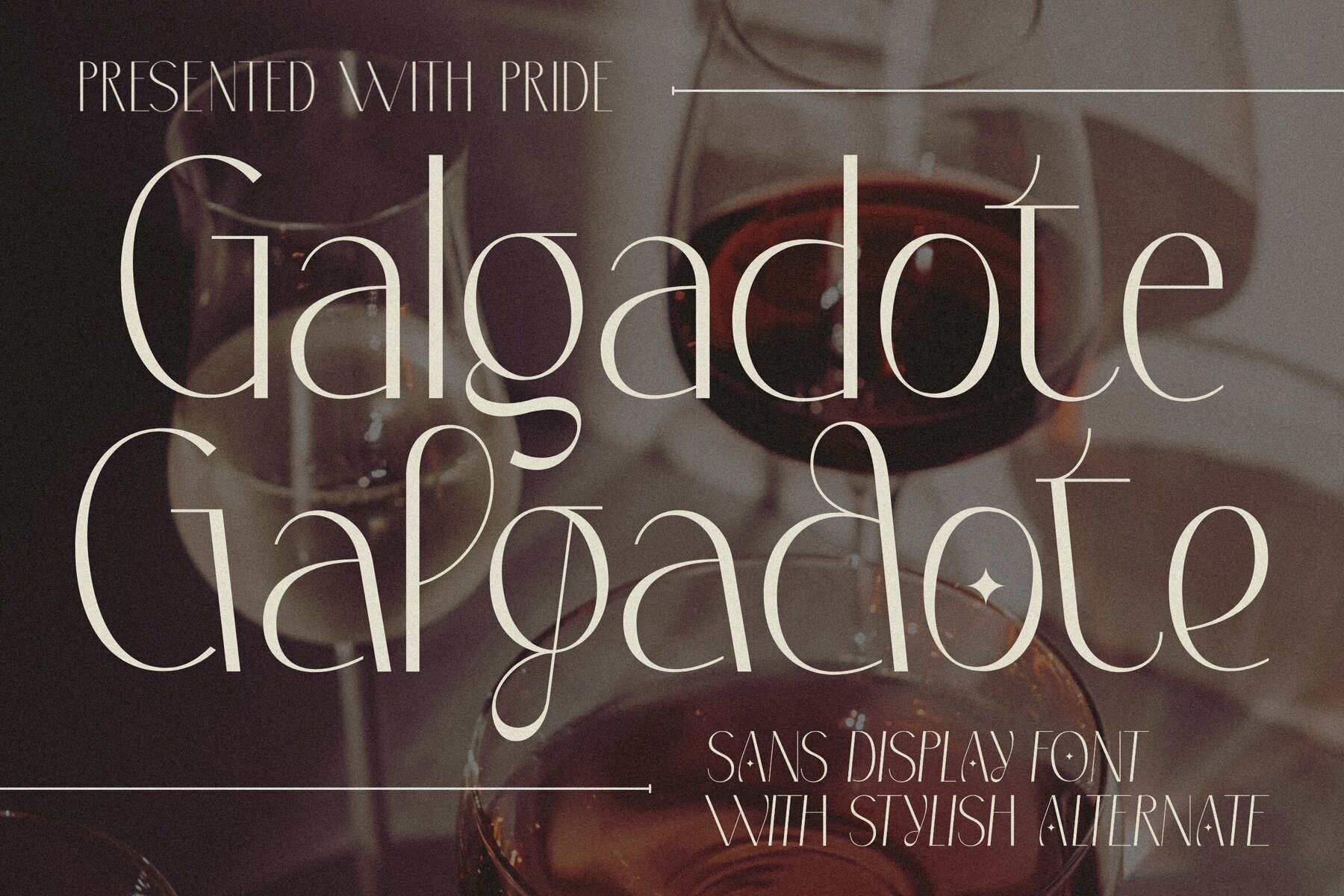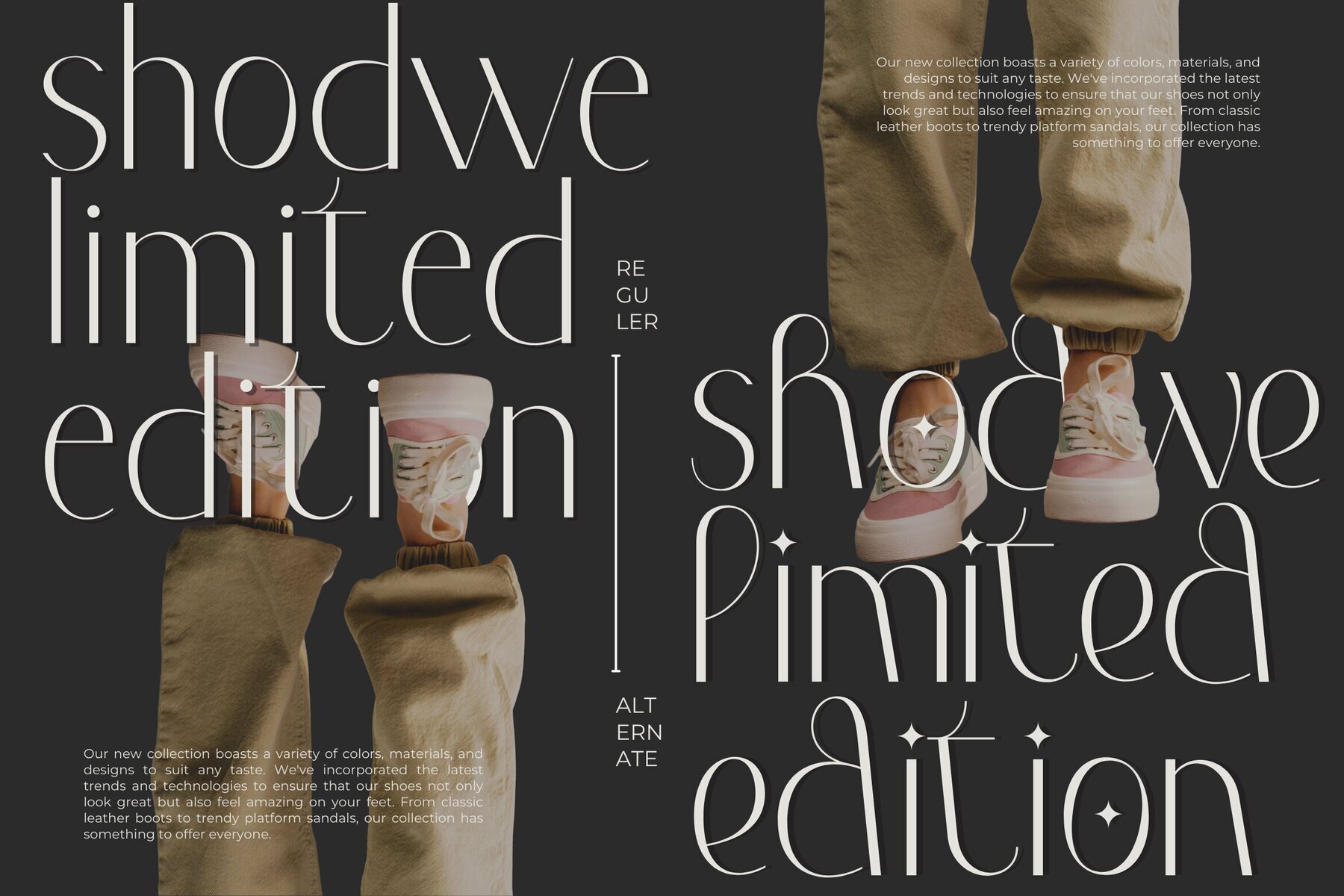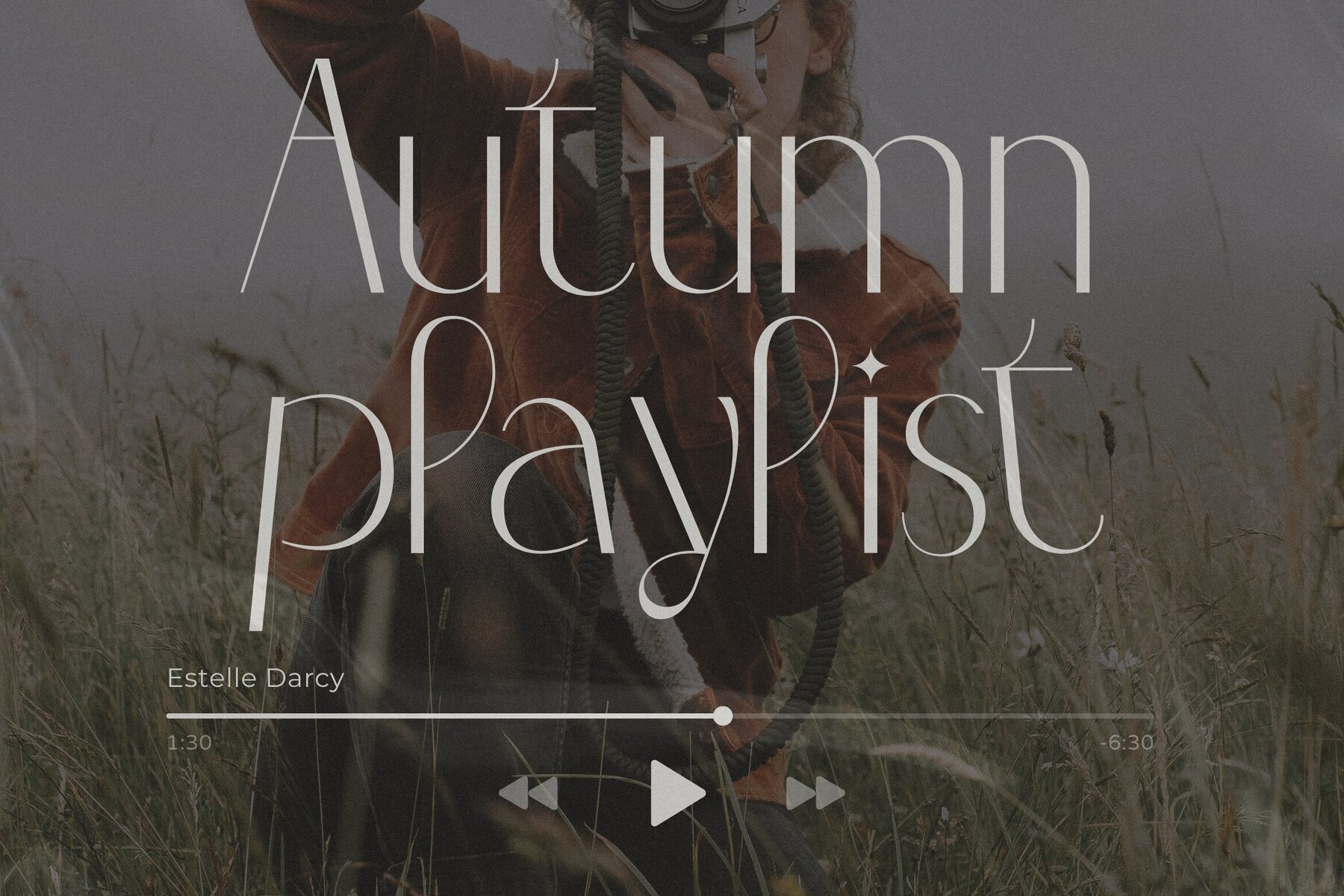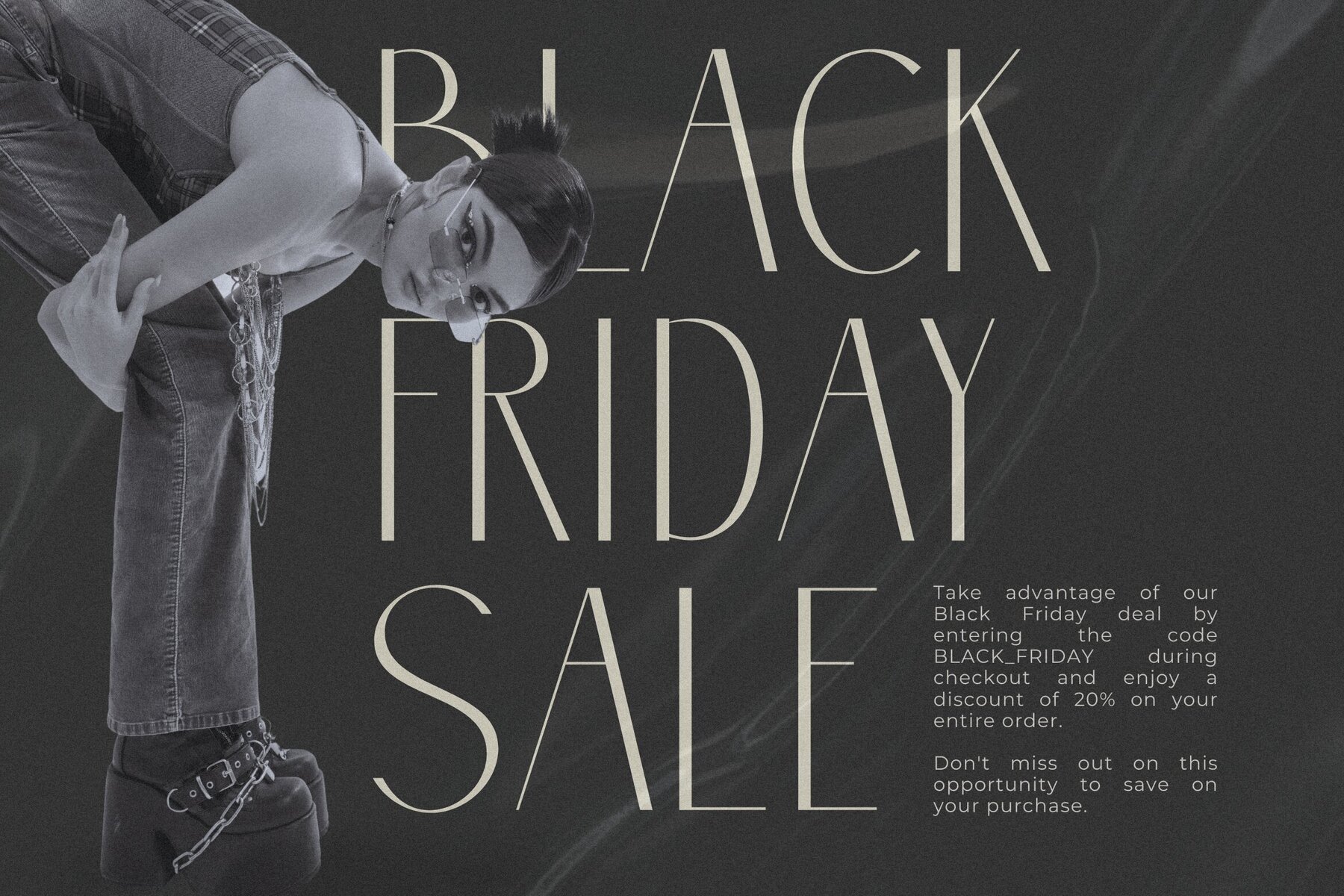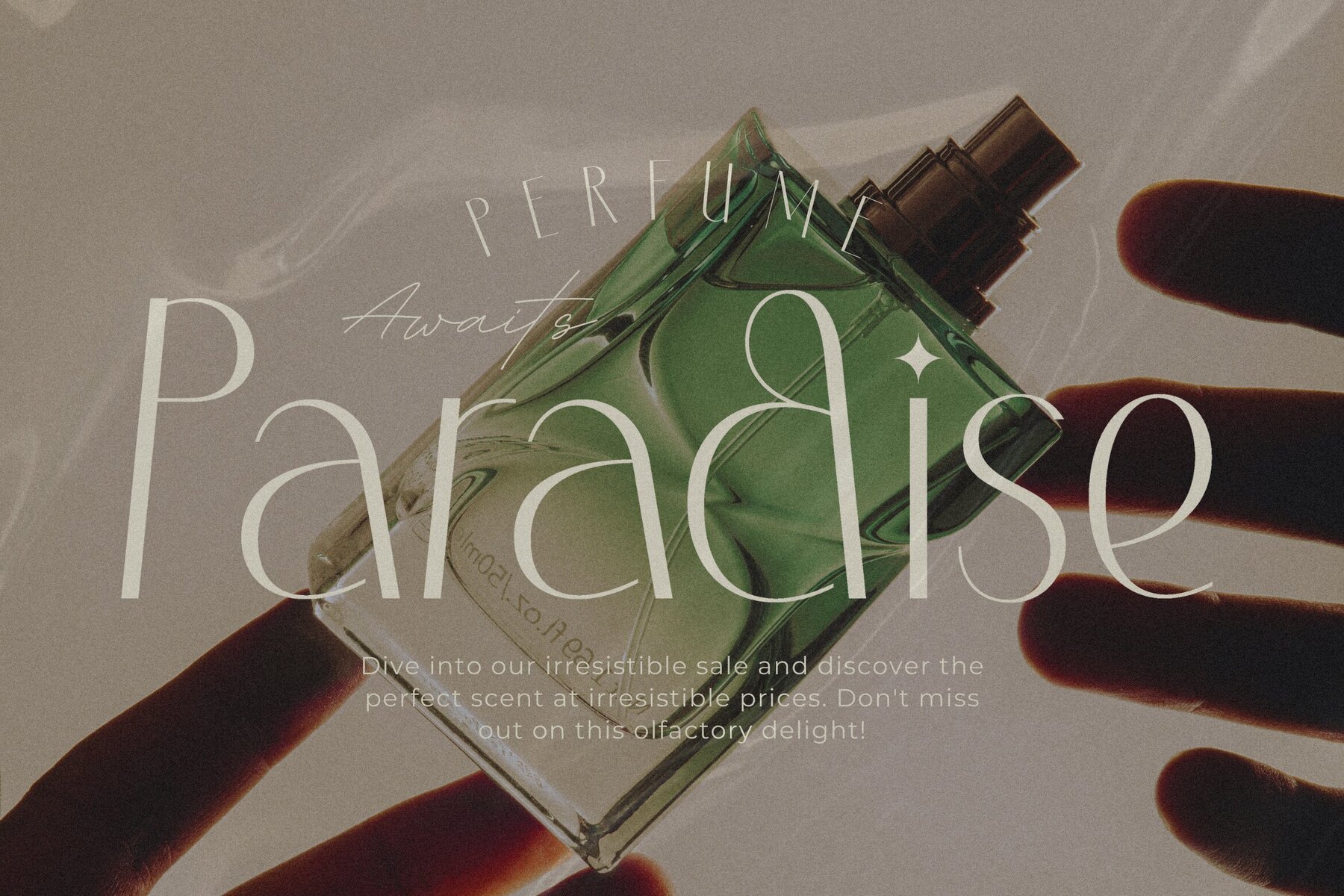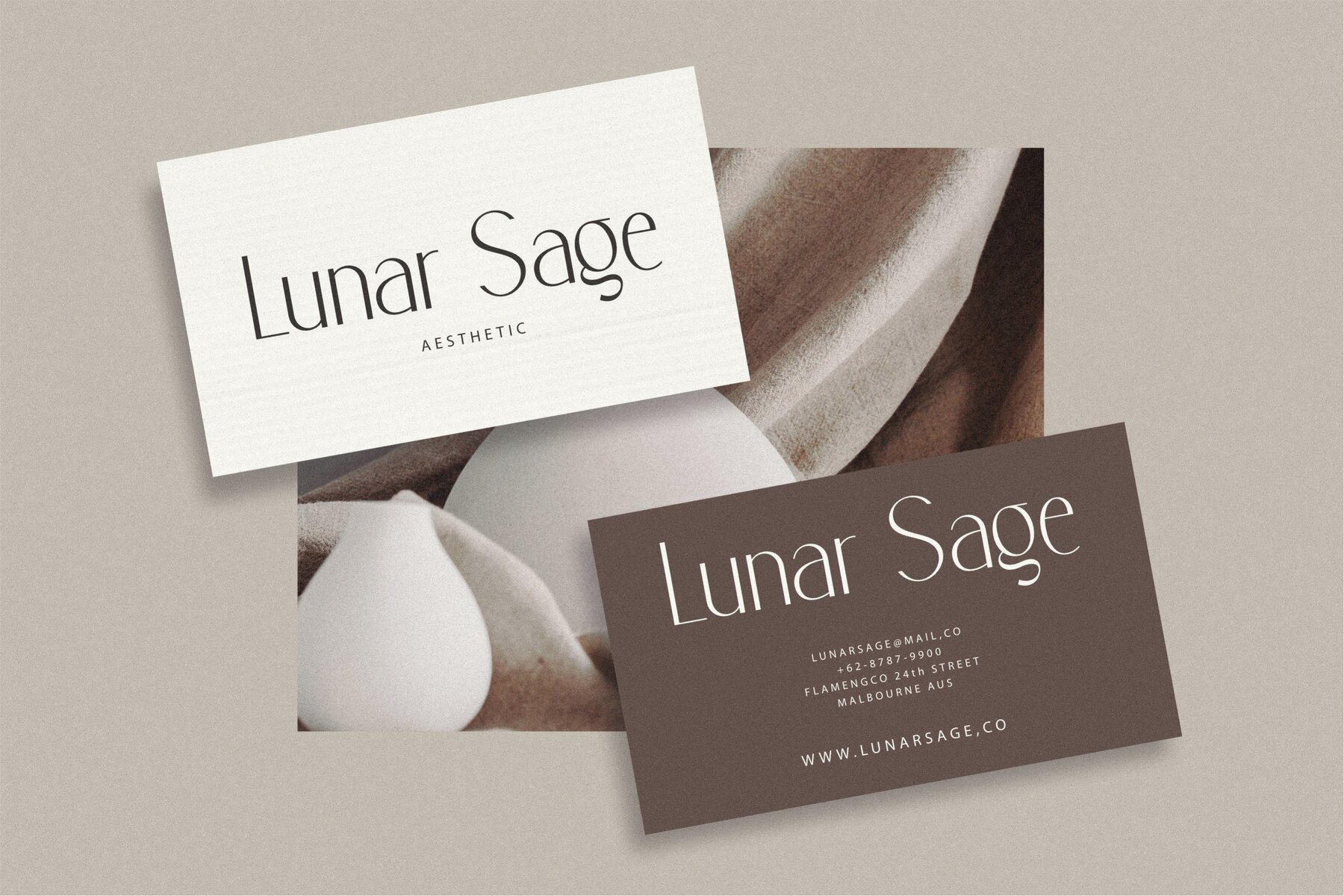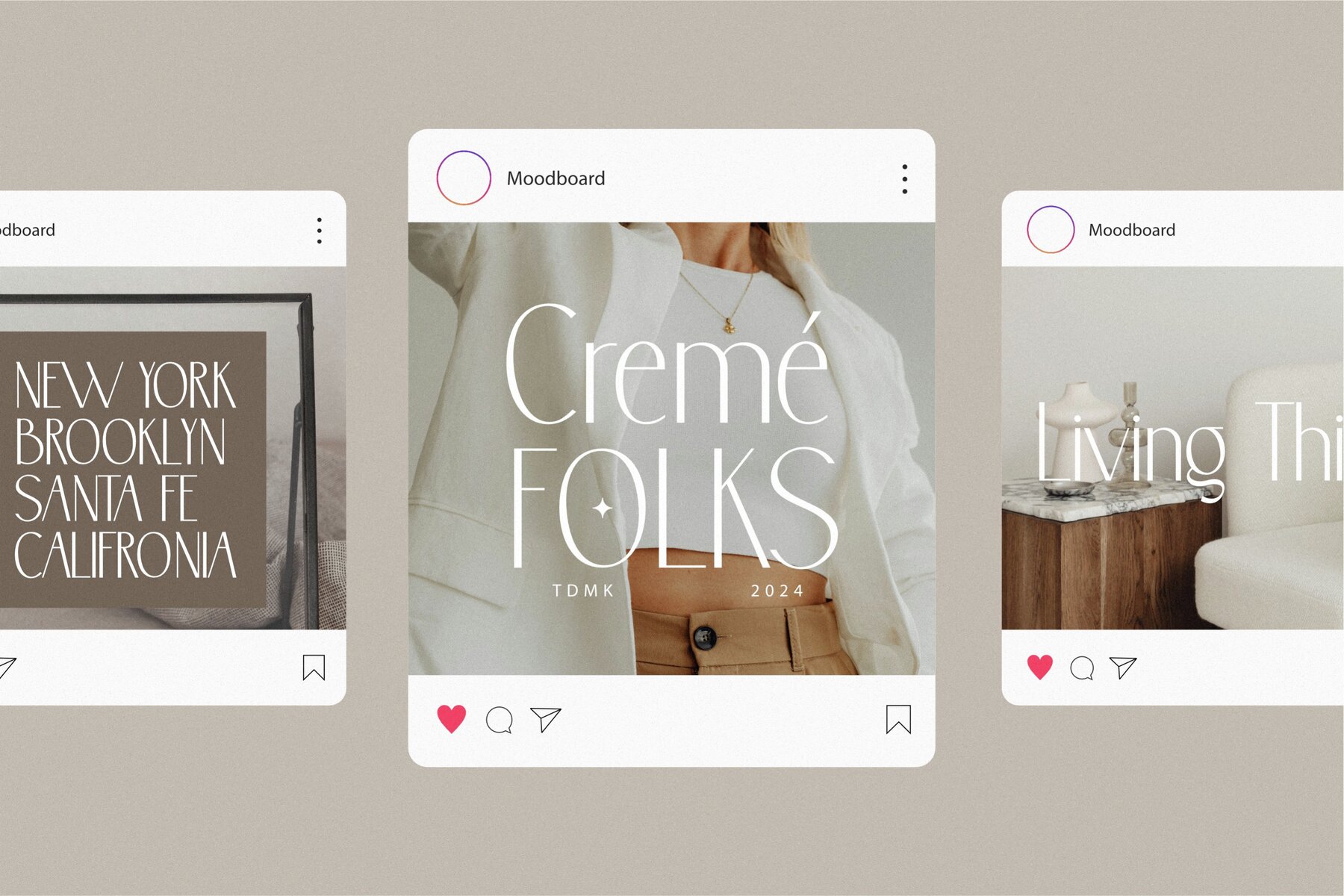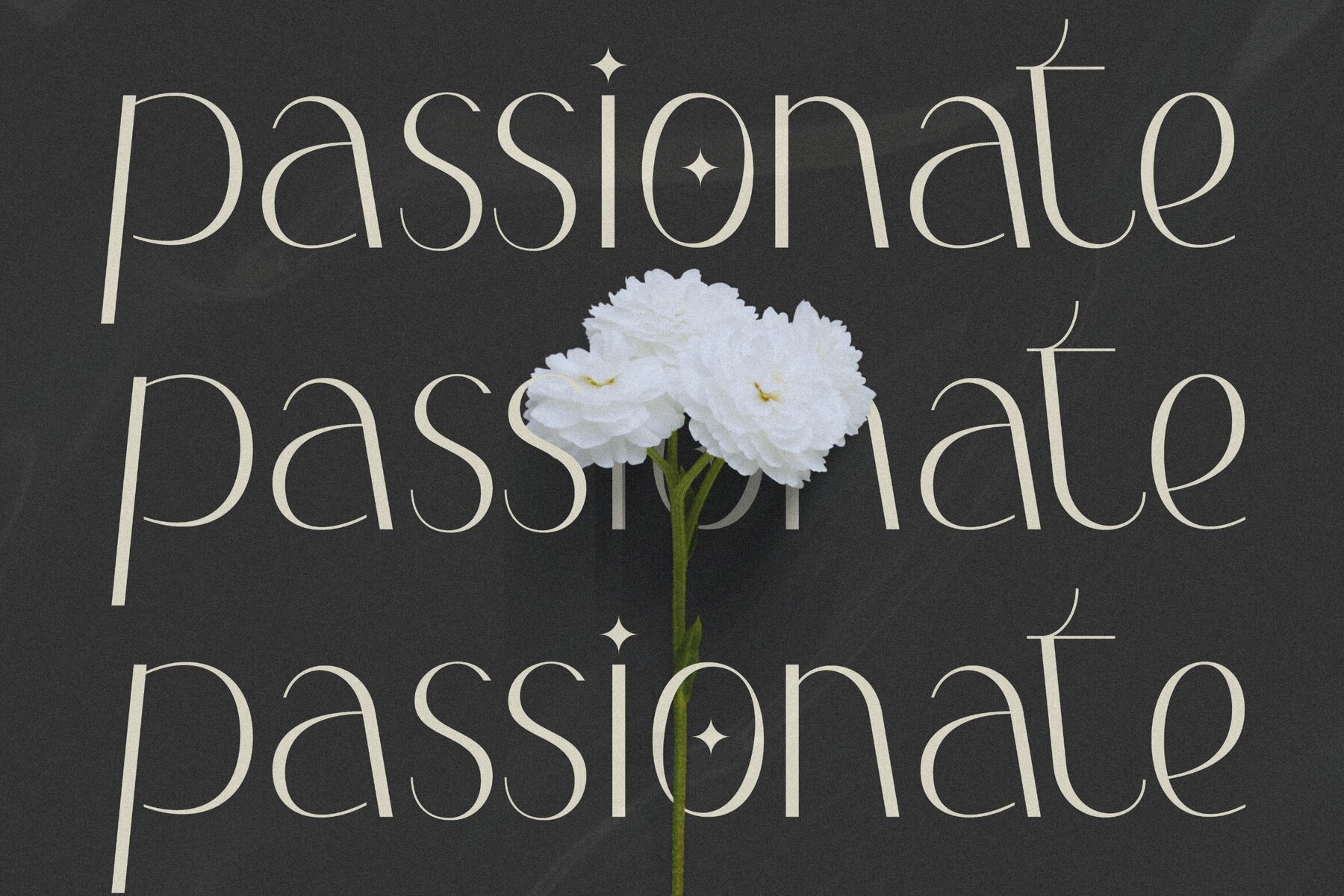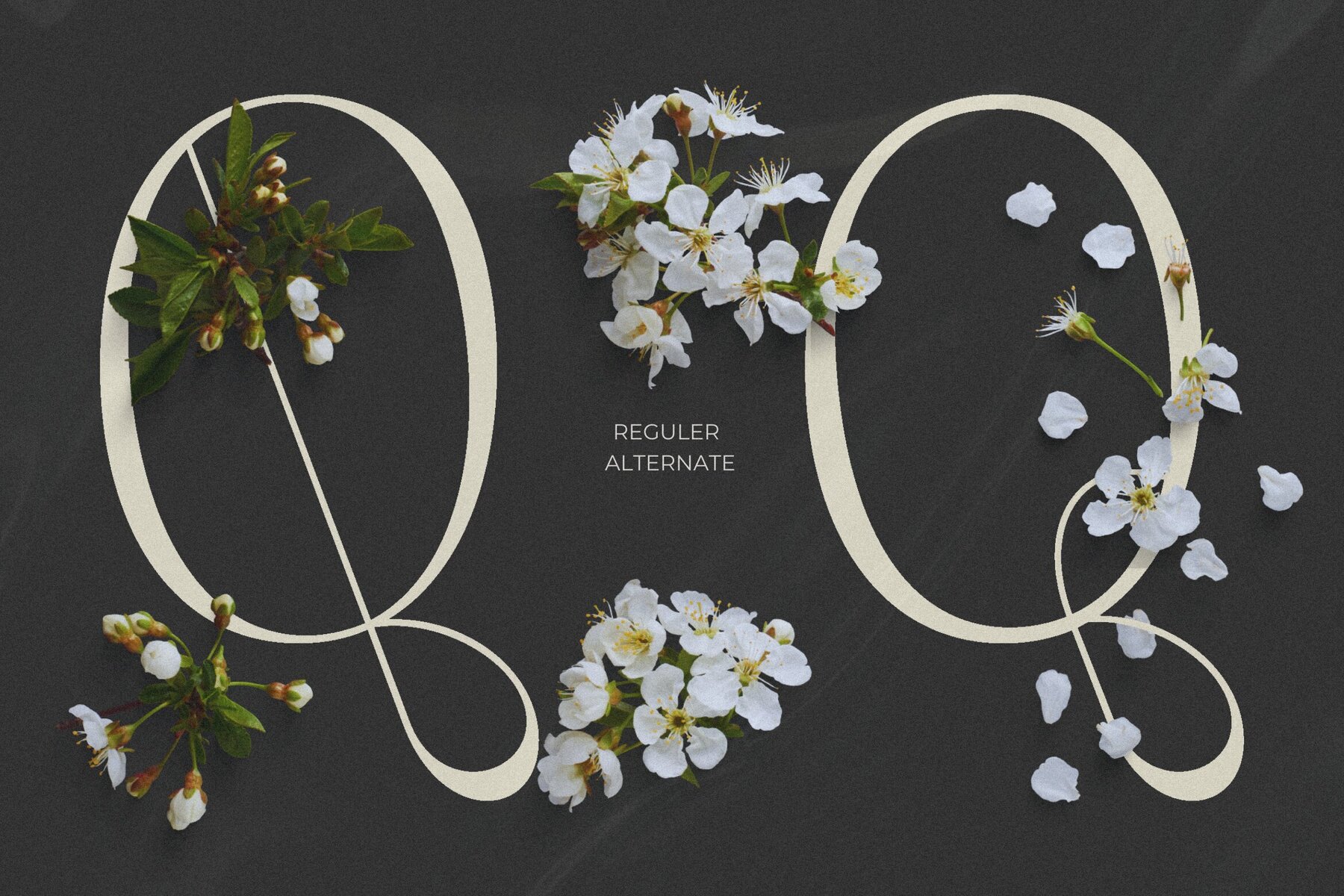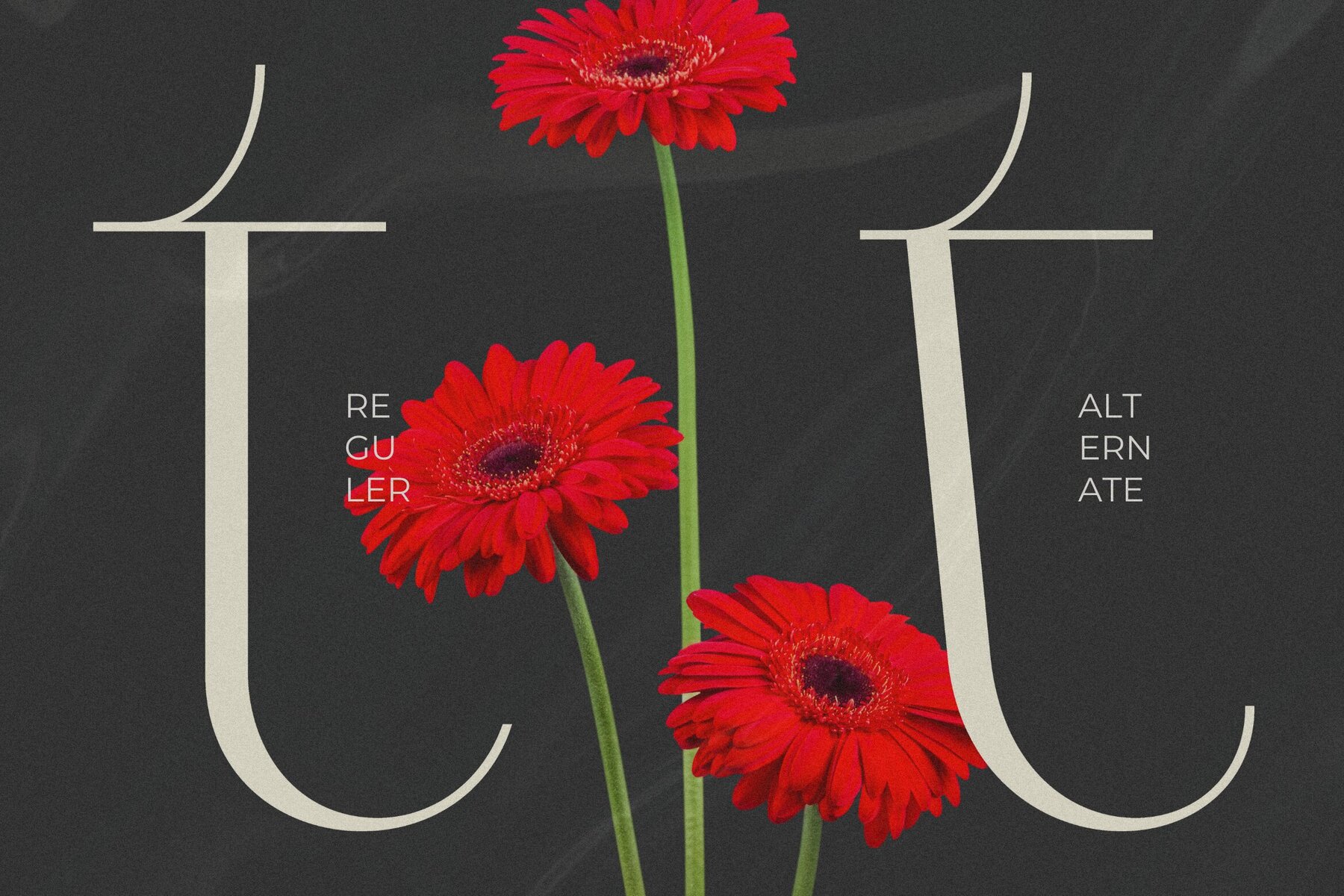
Galgadote Font
Galgadote Regular
Galgadote is a captivating Sans Display Font created with precision and a range of stylish alternate characters. It features uppercase and lowercase letters, numerals, punctuation, and supports multilingual needs. Designed with modern aesthetics in mind, Galgadote offers sleek simplicity and elegant sophistication, making it ideal for diverse projects including branding, editorial layouts, advertising, and more.
This font stands out with its array of alternate characters, enabling you to infuse your text with unique flair and creativity seamlessly. Whether crafting corporate identities, bold headlines, or eye-catching posters, Galgadote provides the versatility required for various design demands. The font ensures legibility, ensuring your message is communicated clearly, while its distinctive style leaves a memorable impact on your audience. Explore vast creative potentials with Galgadote, a refined choice for designers seeking both elegance and adaptability.